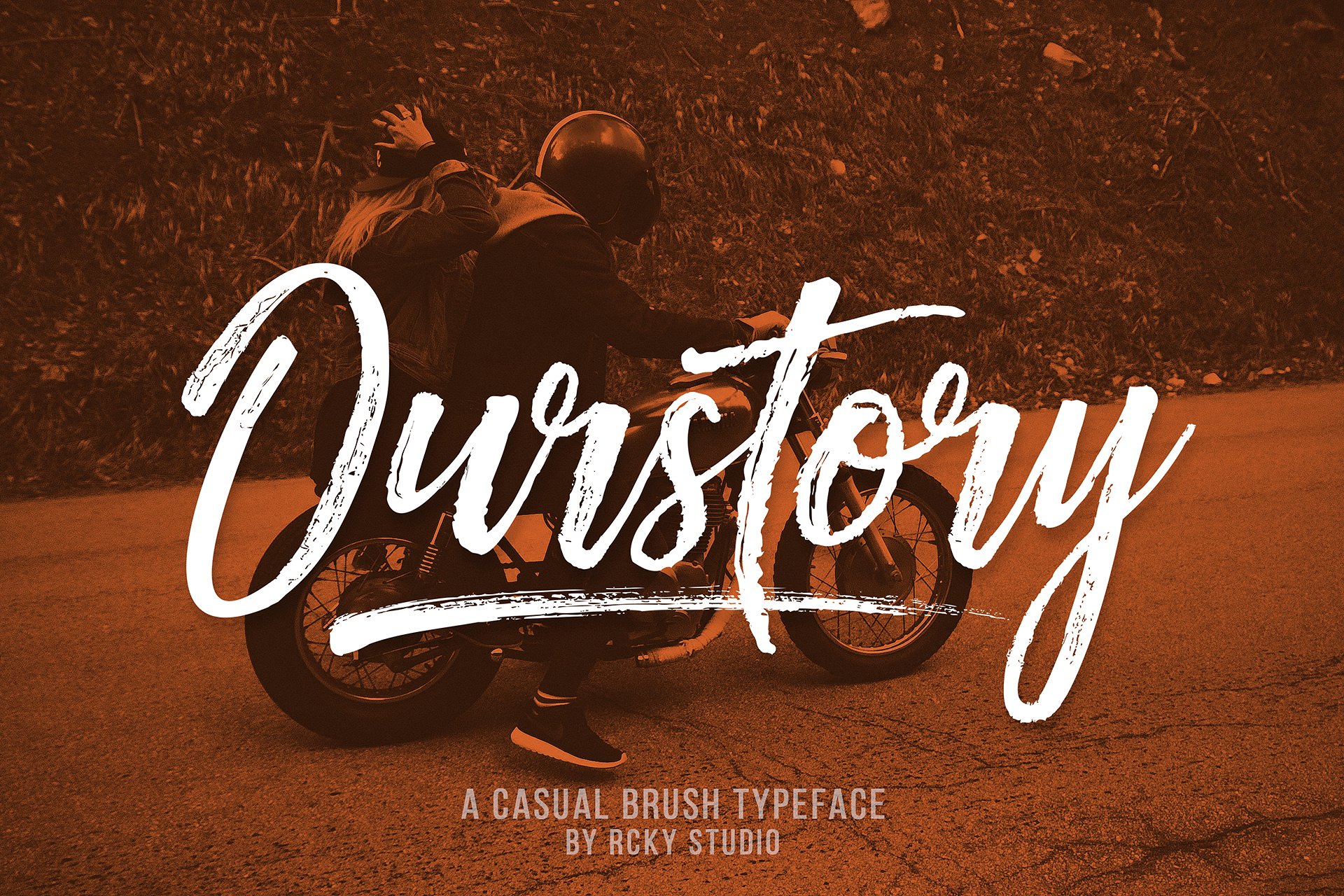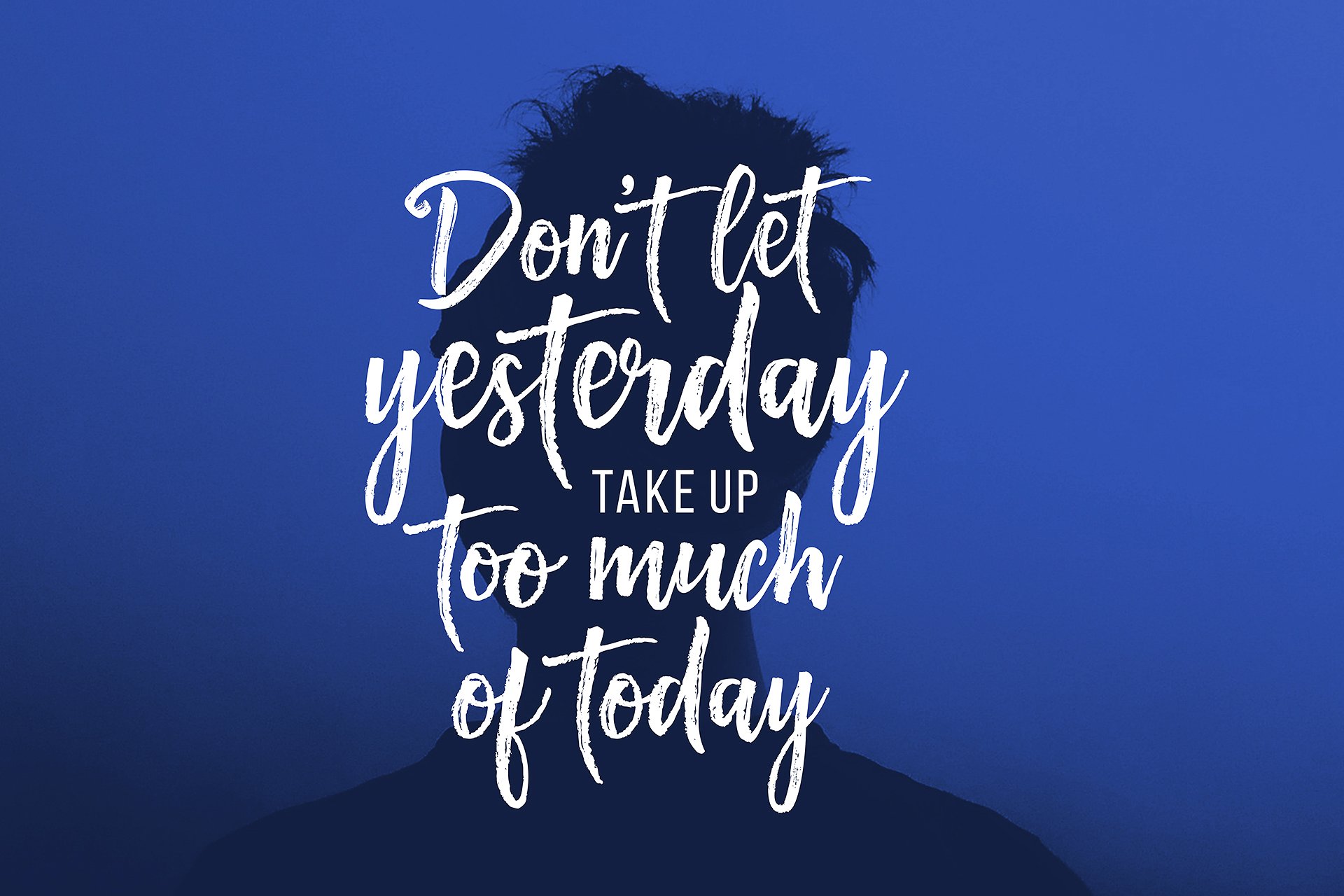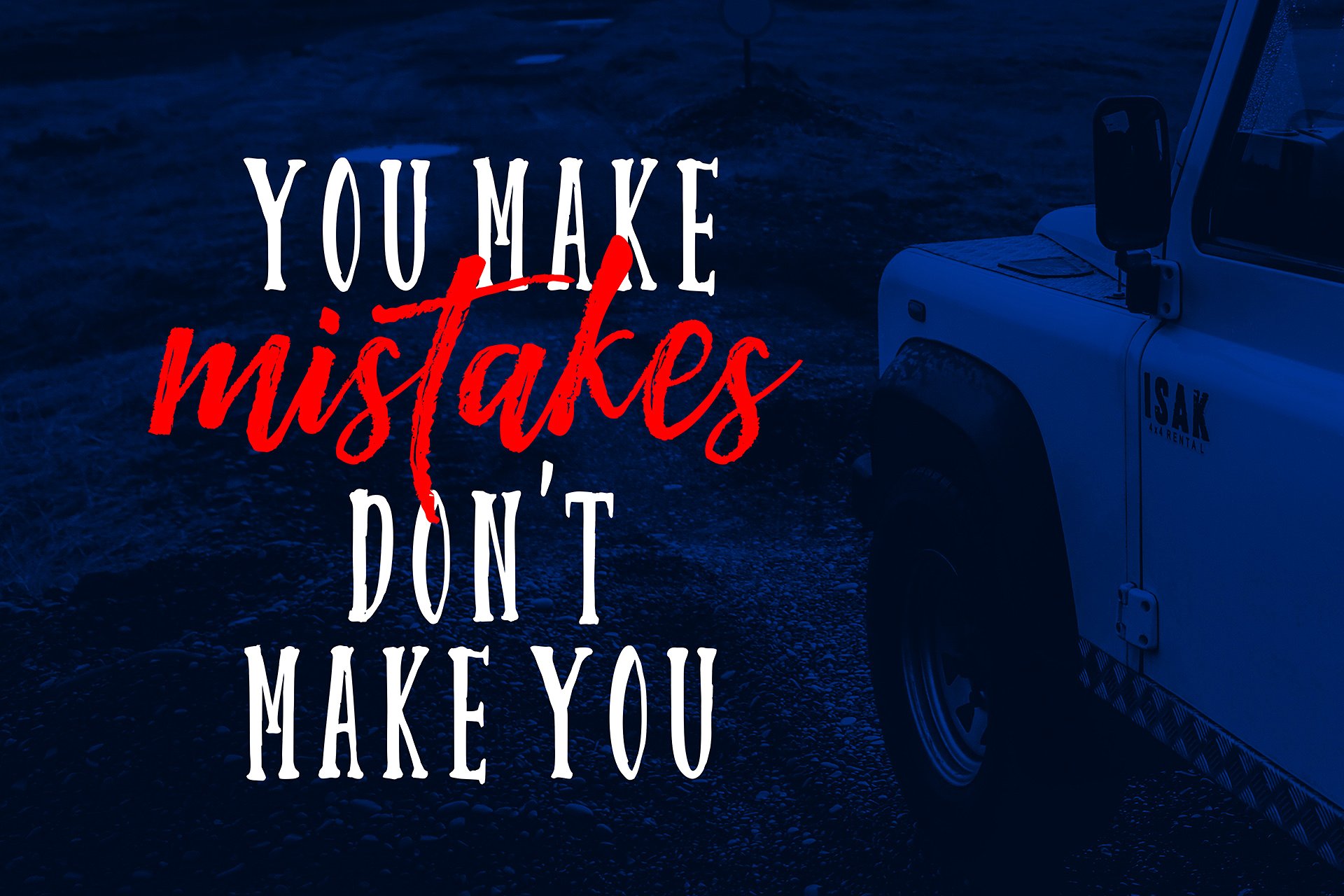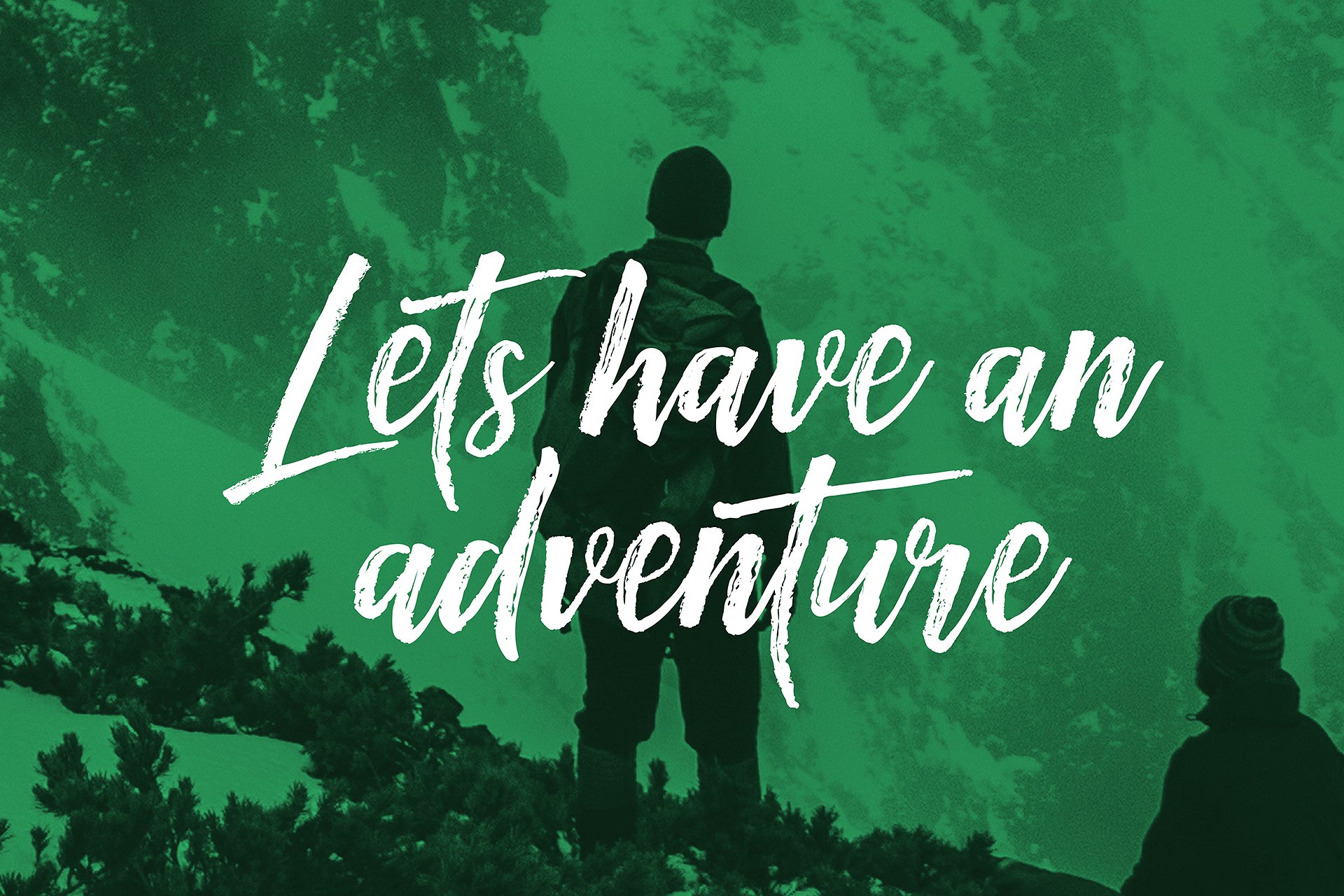
Ourstory Font Duo Font
About the Ourstory Font Duo Font
Crafted with precision, the Ourstory Font Duo Font is ready to bring your ideas to life. Ourstory is a hand drawn textured brush font, taking a very contemporary approach to typography. Deftly crafted, Ourstory works well together or separately; the possibilities are endless – yet stylish.
Ourstory’s bold, expressive strokes make it ideal for headlines, short impactful quotes, and branding elements where a hand-crafted feel is desired. It shines in projects needing a touch of modern artistry—think product packaging, posters, or social media graphics. However, its textured nature makes it less suitable for body text or UI elements requiring high legibility.
Pairing Ourstory with a clean sans-serif like Montserrat for body copy creates a strong contrast, balancing the hand-drawn energy with modern clarity. Alternatively, a geometric sans-serif such as Futura would lend a sophisticated, contemporary feel. For a more playful approach, a simple serif like Playfair Display could work well.
The overall personality of Ourstory is confident and creative, lending itself to brands that value authenticity and artistic expression. Avoid pairing with overly ornate or fussy fonts; simplicity is key to complementing its unique texture and expressive forms.
Ourstory Font Duo Font Usage Examples
Ourstory Font Duo Font Example